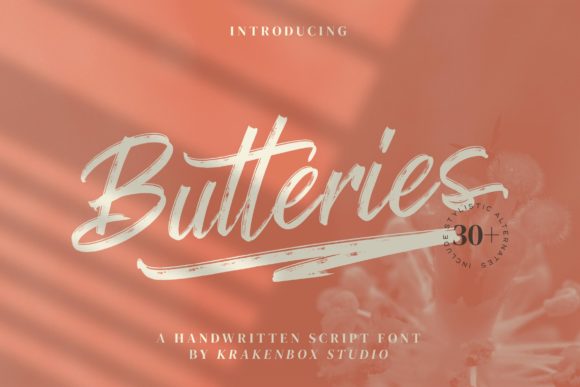
The Elusive Perfect Font: My Encounter with Butteries Font
I’ll never forget the frustration of working on a fashion branding project, scrolling through font after font, and just not finding “the one”. My client wanted something elegant, modern, and with a touch of whimsy. I wanted to deliver. That’s when I stumbled upon Butteries Font, a fashionable and brushed script font that would change the game. In this article, I’ll share my experience with Butteries, its features, and how to make the most of it in your designs.
First Impressions: A Love Affair with Butteries
As soon as I saw Butteries in action, I knew I had found something special. Its unique curves and elegant inky flow make it perfect for fashion, signature, album covers, logos, and more. Here are the things I love about Butteries:
- ✨ Elegant and classy look that’s perfect for high-end brands
- ✅ Modern and fresh feel that’s sure to stand out
- 🎉 PUA encoded, making it easy to access all the amazing glyphs and ligatures
- 💫 Works beautifully for both digital and print projects
The Honest Review: Not Perfect, But Close
While Butteries is an amazing font, it’s not without its quirks. Here are a few things to keep in mind:
- 🤔 Some users might find the font a bit too script-heavy for certain projects
- ⚠️ Limited use of uppercase letters, which might be a consideration for certain designs
The Story Behind Butteries
Butteries Font was designed with the intention of creating a unique and elegant script font that captures the essence of modern fashion. Inspired by the fluidity of ink and the expressiveness of handwriting, Butteries is the perfect blend of style and sophistication.
| Is Butteries Font suitable for body text? | While Butteries is a beautiful font, it’s best suited for headlines and titles. For body text, you may want to choose a more legible font. |
In conclusion, Butteries Font is an exceptional addition to any designer’s toolkit. Its elegant and modern look, combined with its ease of use and OpenType features, make it perfect for a wide range of applications. Whether you’re a seasoned designer or a creative hobbyist, Butteries is sure to inspire your next project.